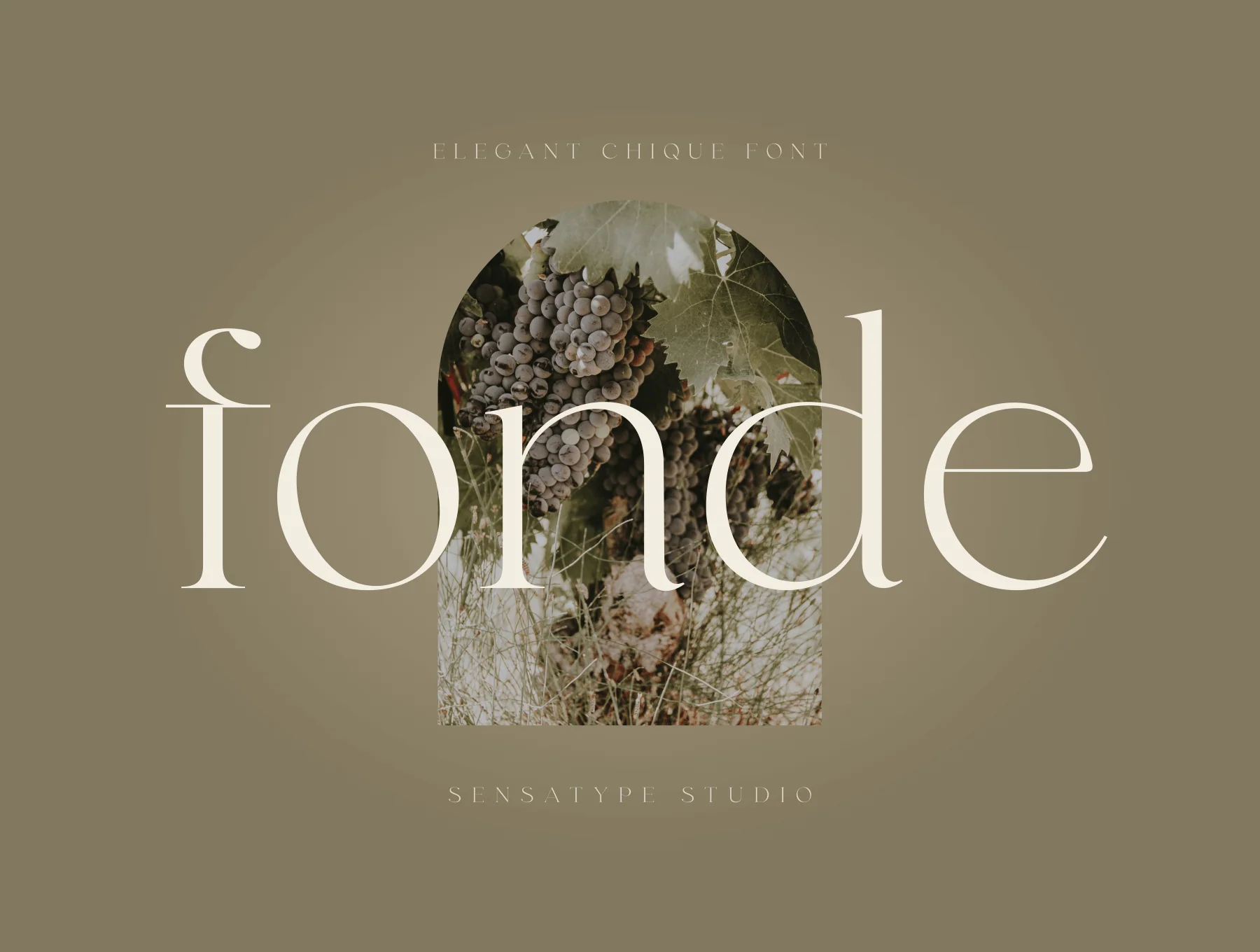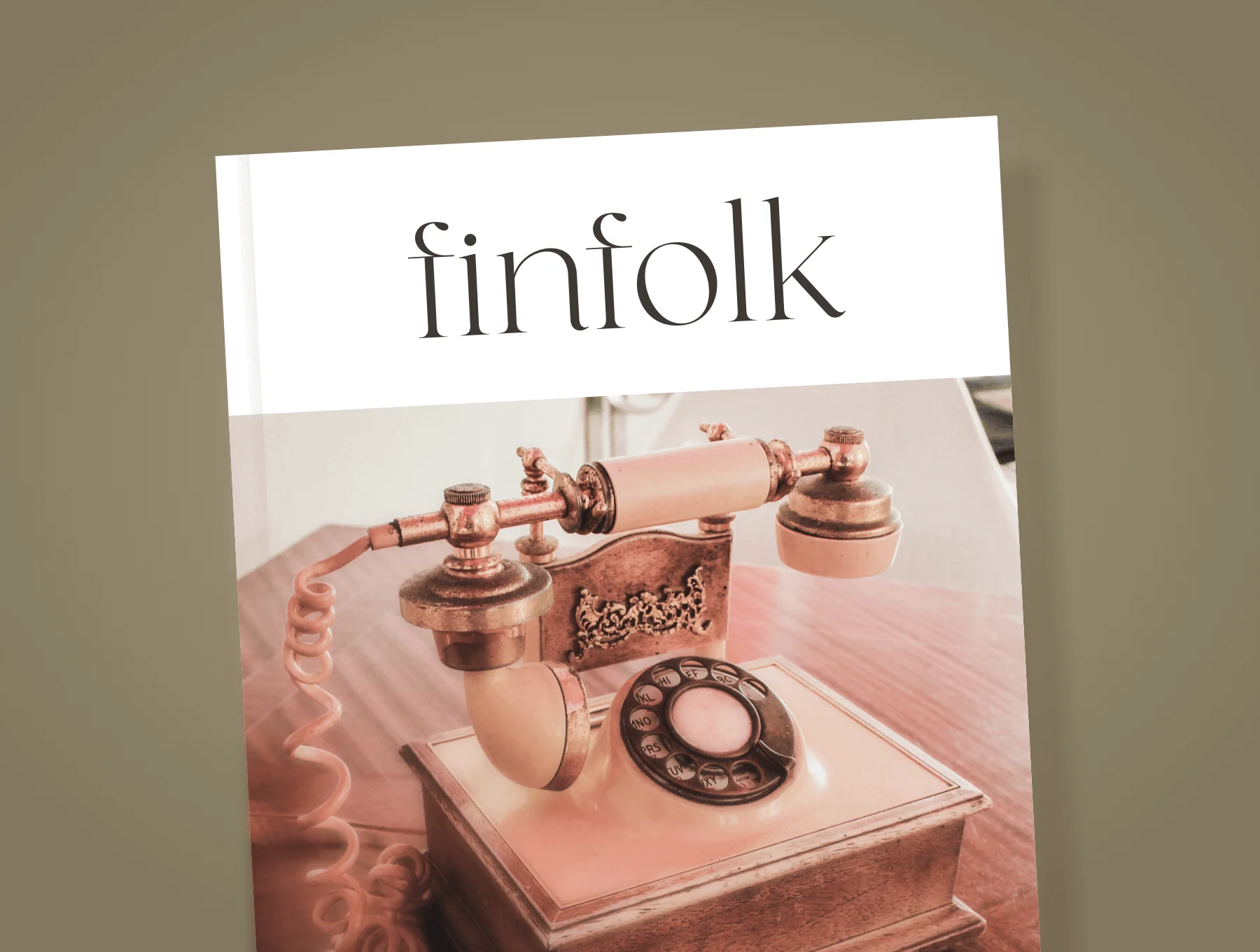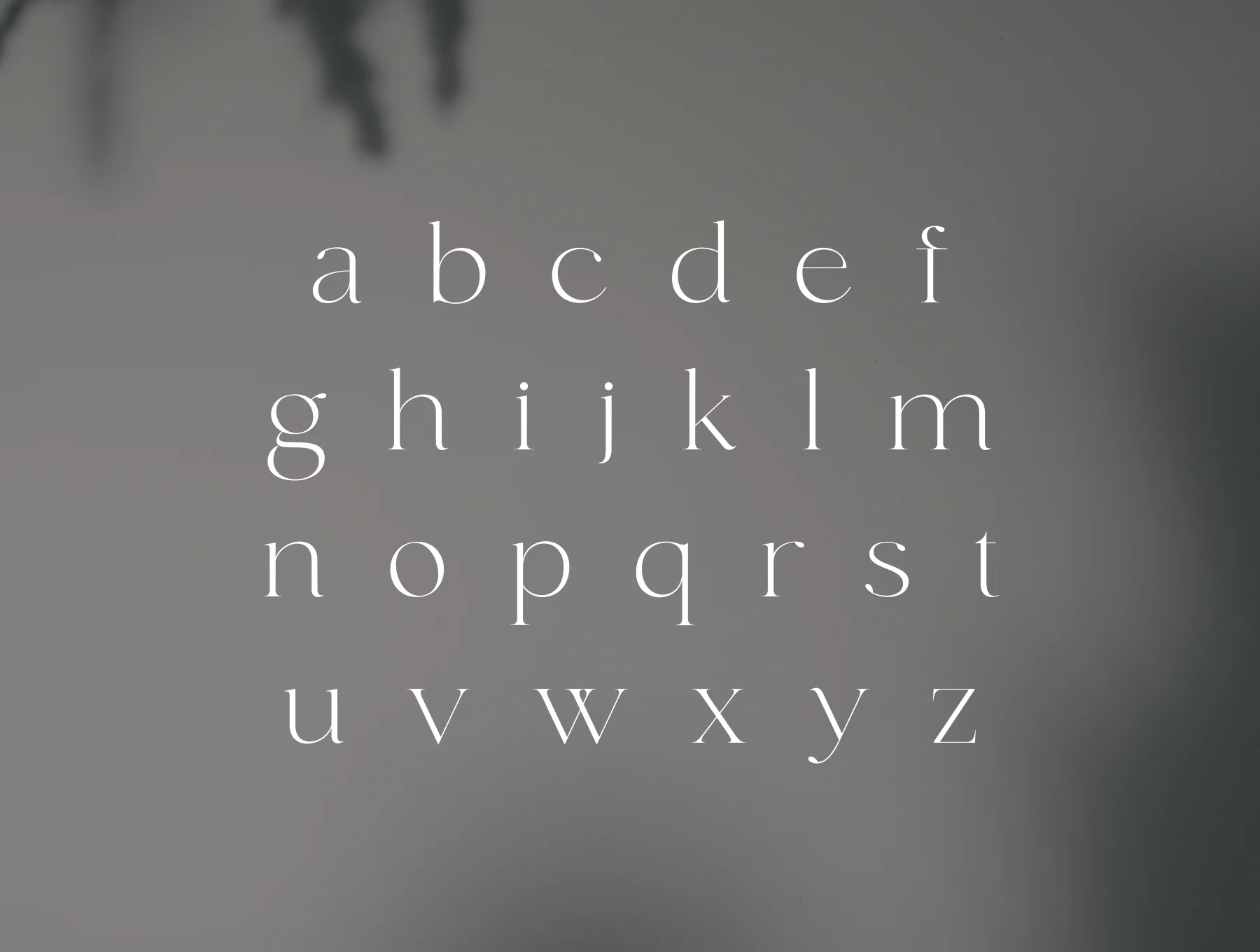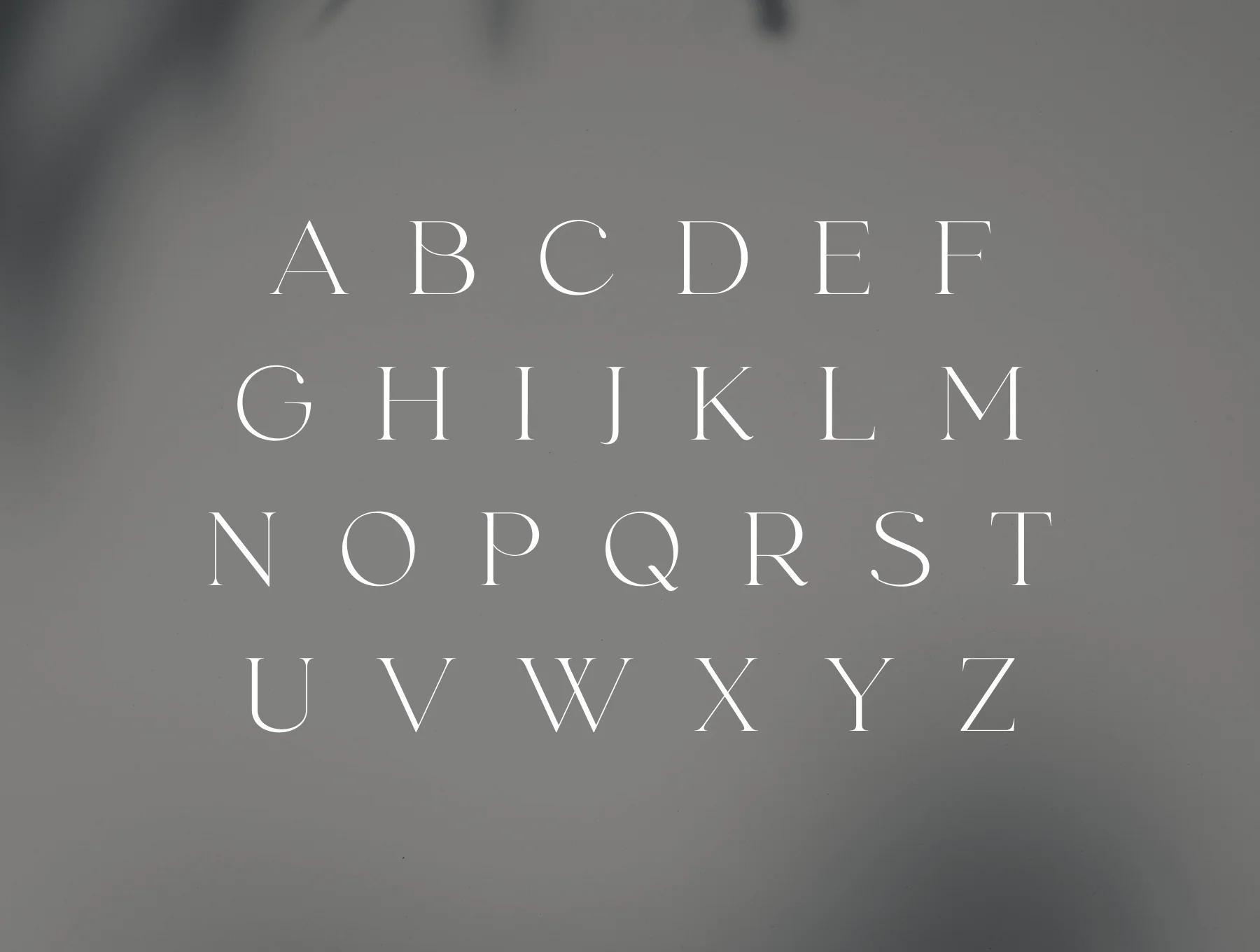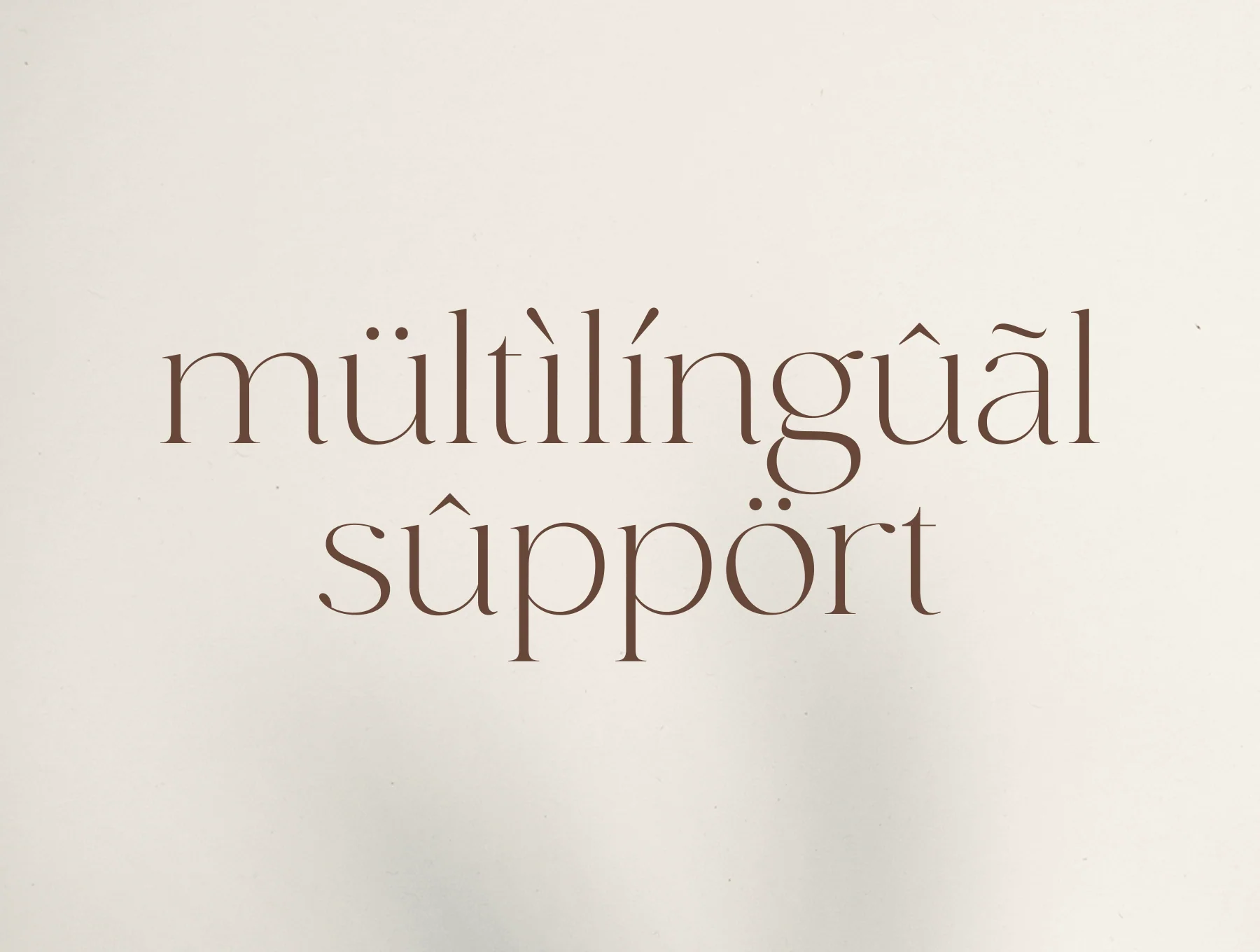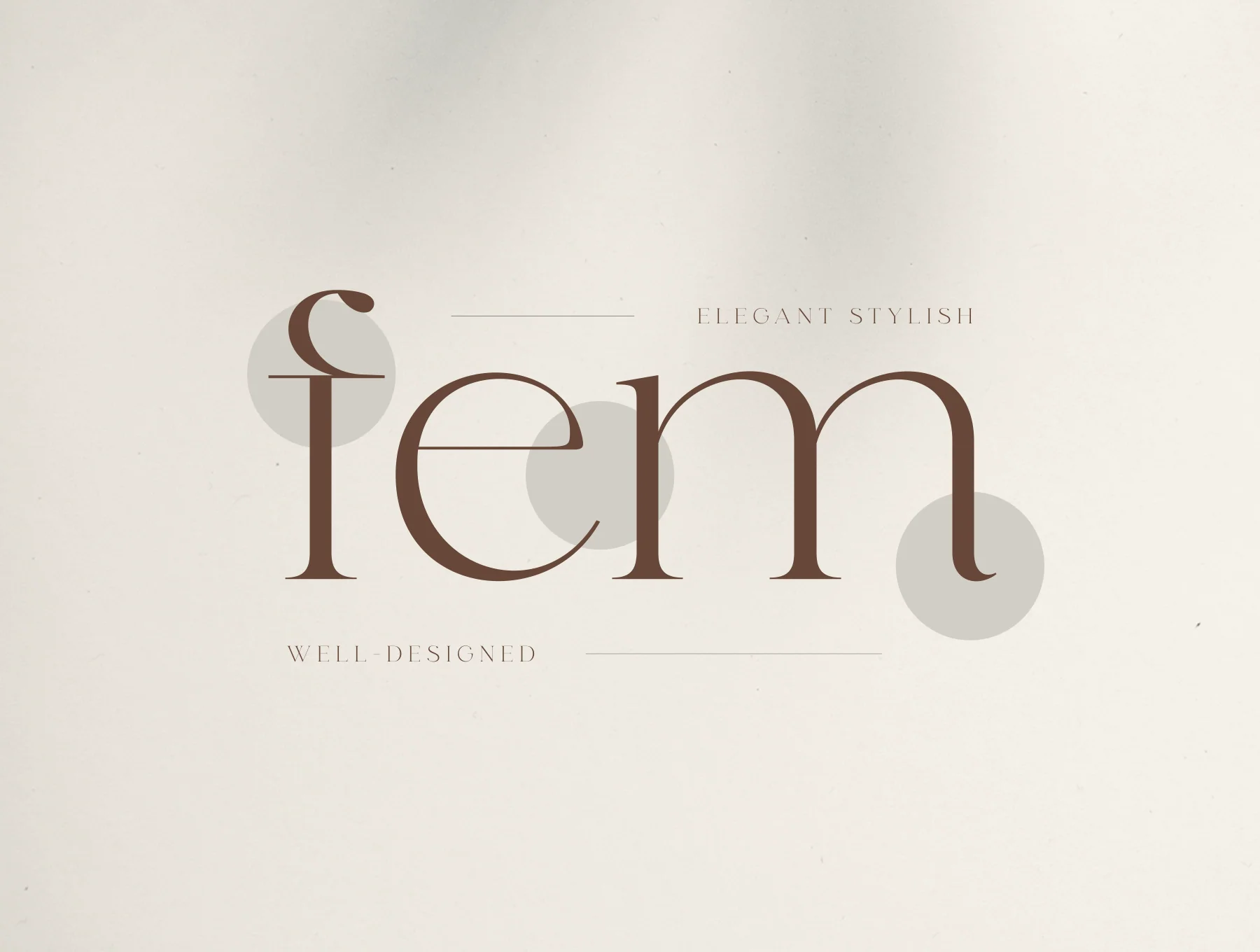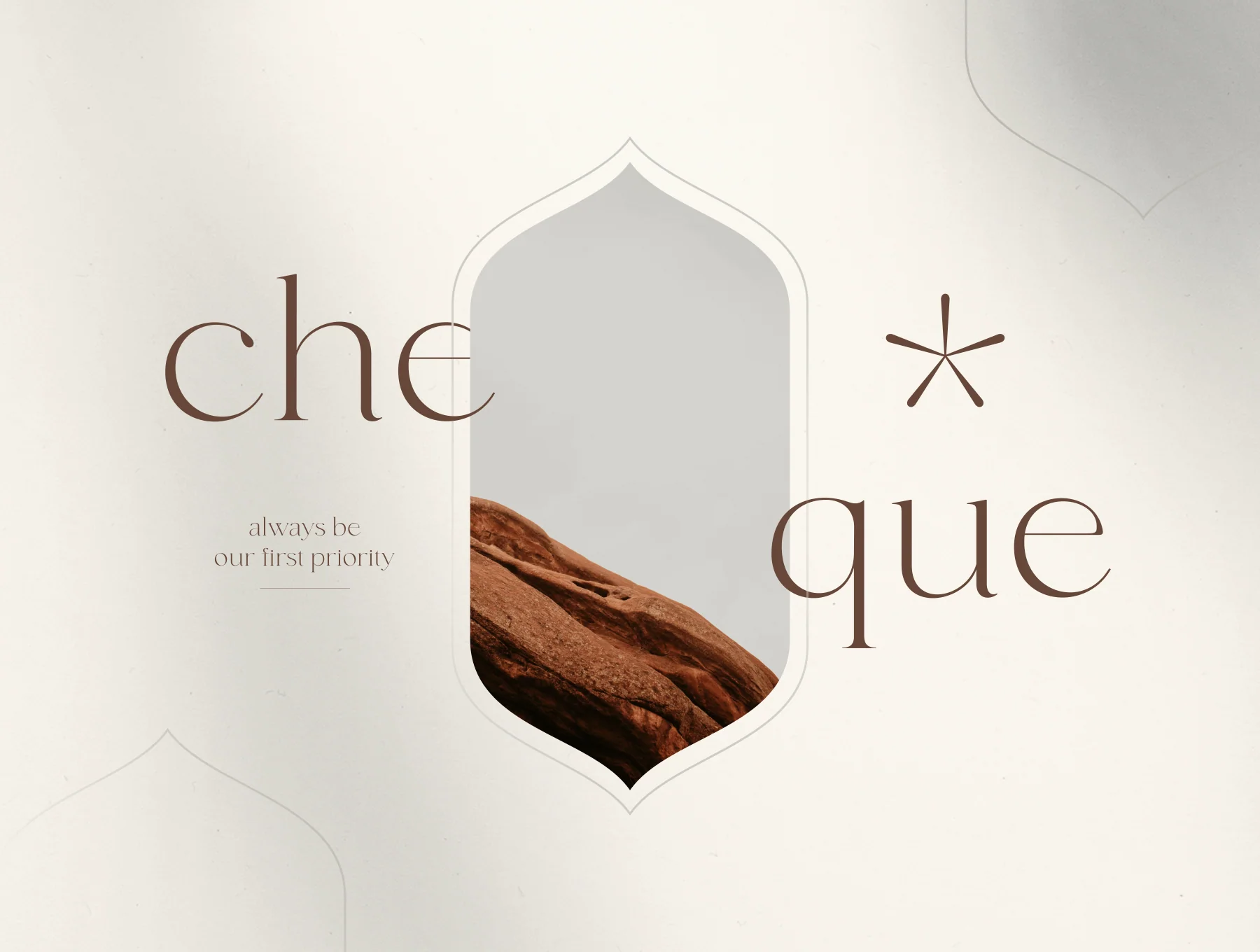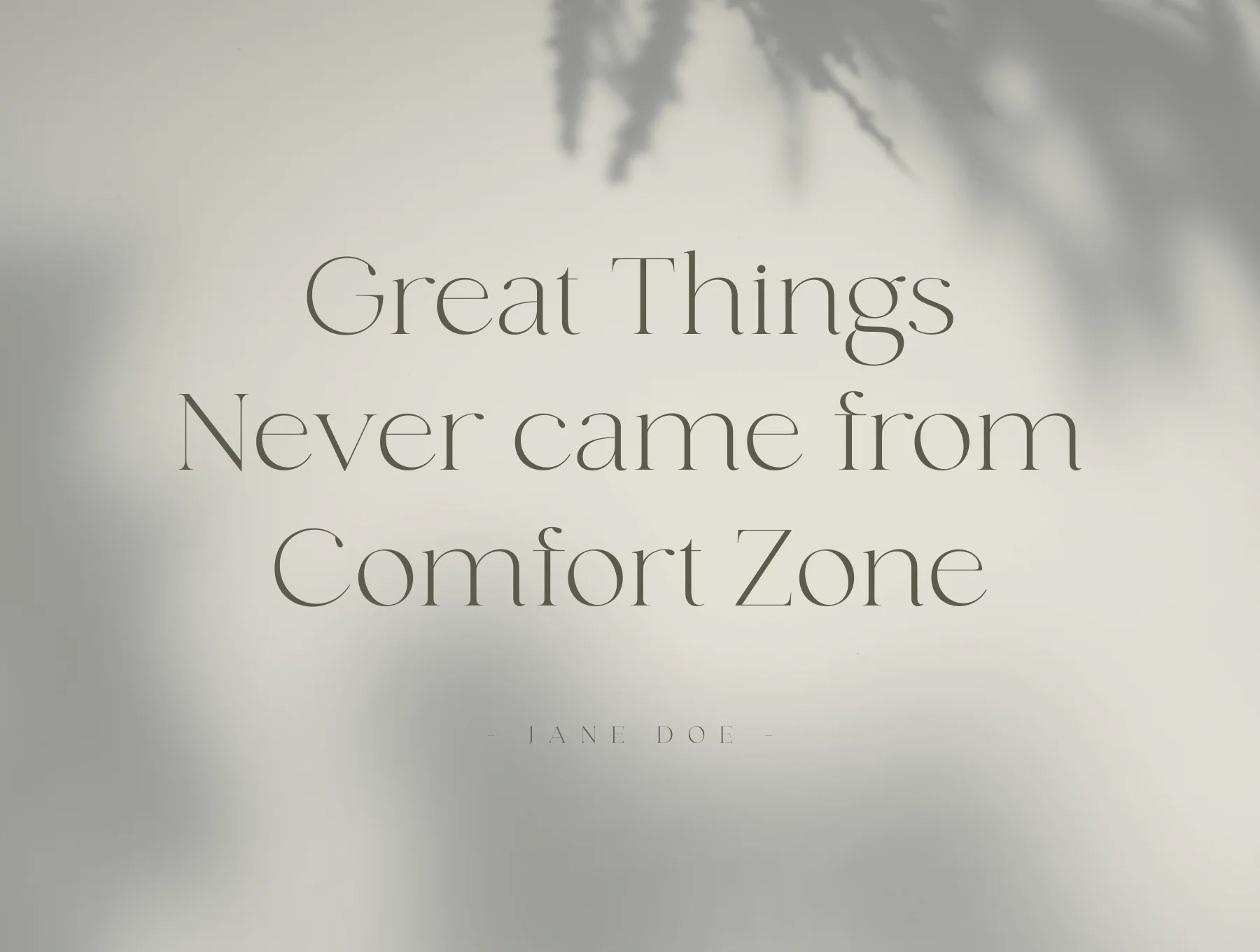
fonde - elegant chique font
Fonde is a refined, chic typeface for branding, logo work, and quote designs.
Complete collection of capital and small letters
International characters, numbers, and punctuation marks
Fonde is a stylish, sophisticated typeface made for branding, logos, and quote designs. Inspired by our work with many clients seeking distinctive yet refined logo styles, this font was created to bring elegant ideas to life. Use it to craft classy, memorable, and unique brand identities.